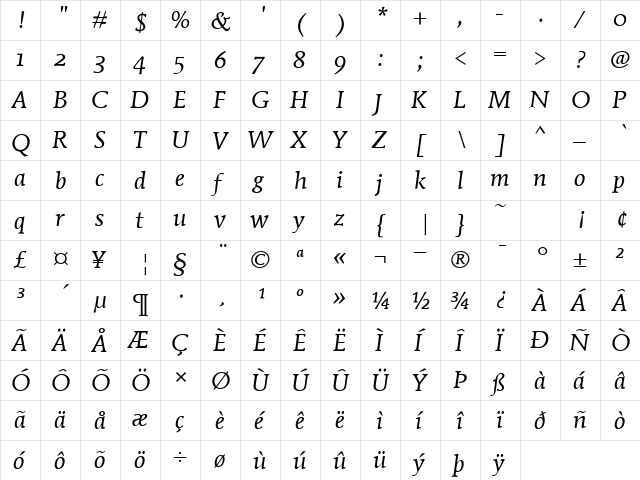
MendozaRomanITCOS-Book BookItalic
Design Context for MendozaRomanITCOS-Book Typeface
MendozaRomanITCOS-Book takes a measured approach to typography — its balanced proportions and neutral character make it a reliable workhorse for both digital and print work. The dynamic lean of this cut emphasises speed and emphasis in any layout.
Pro Tip: Use MendozaRomanITCOS-Book for emphasis, pull quotes, and subheadings where its slanted energy can add rhythm to the layout.